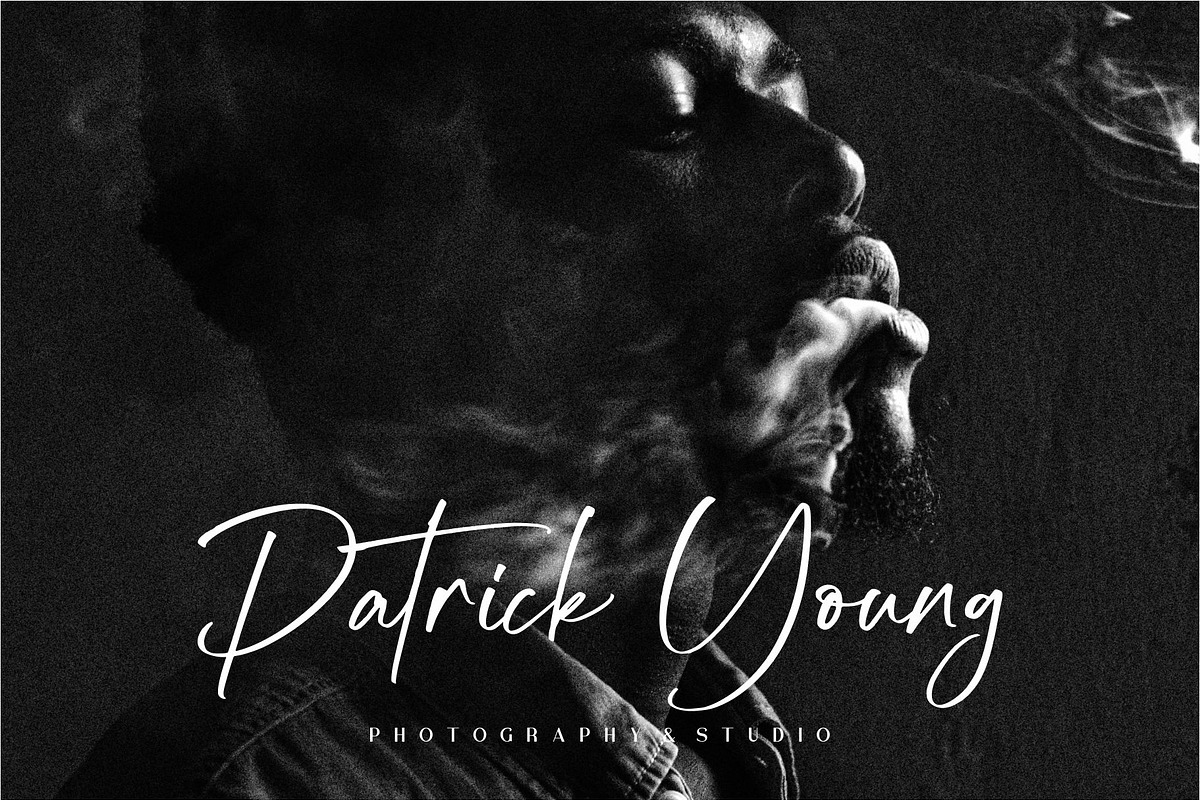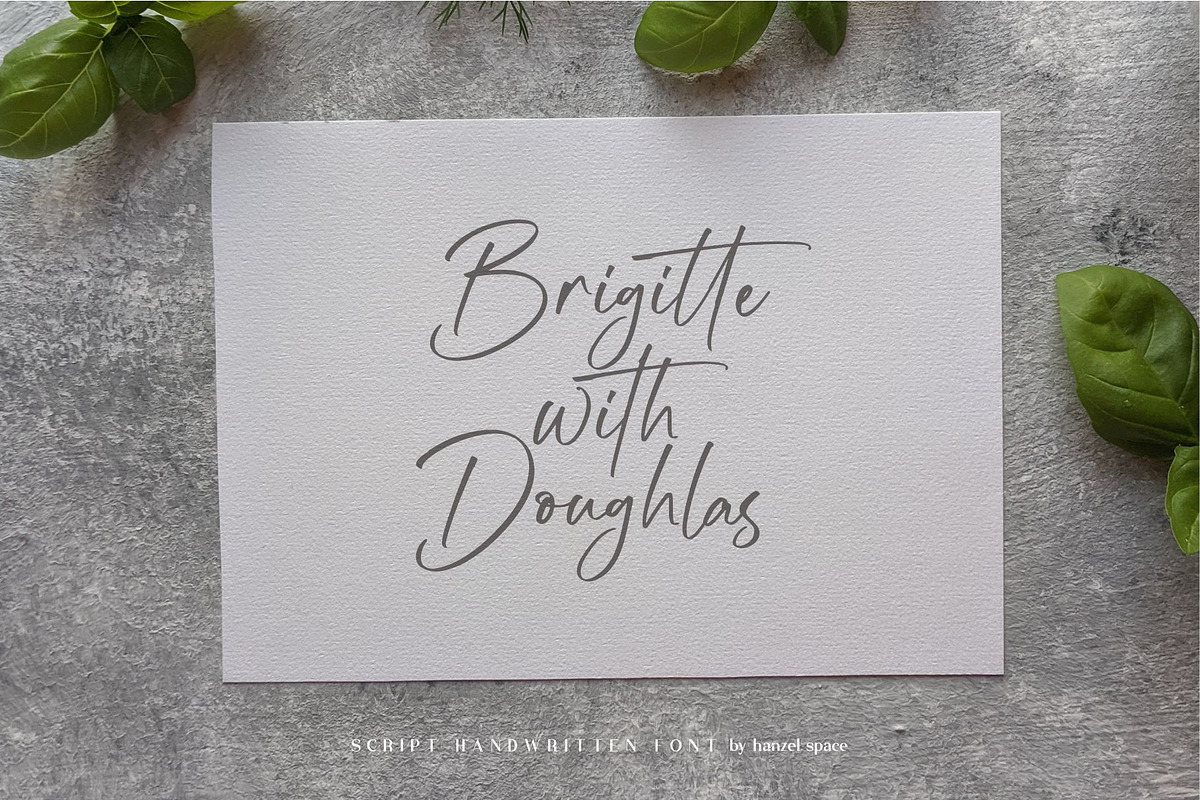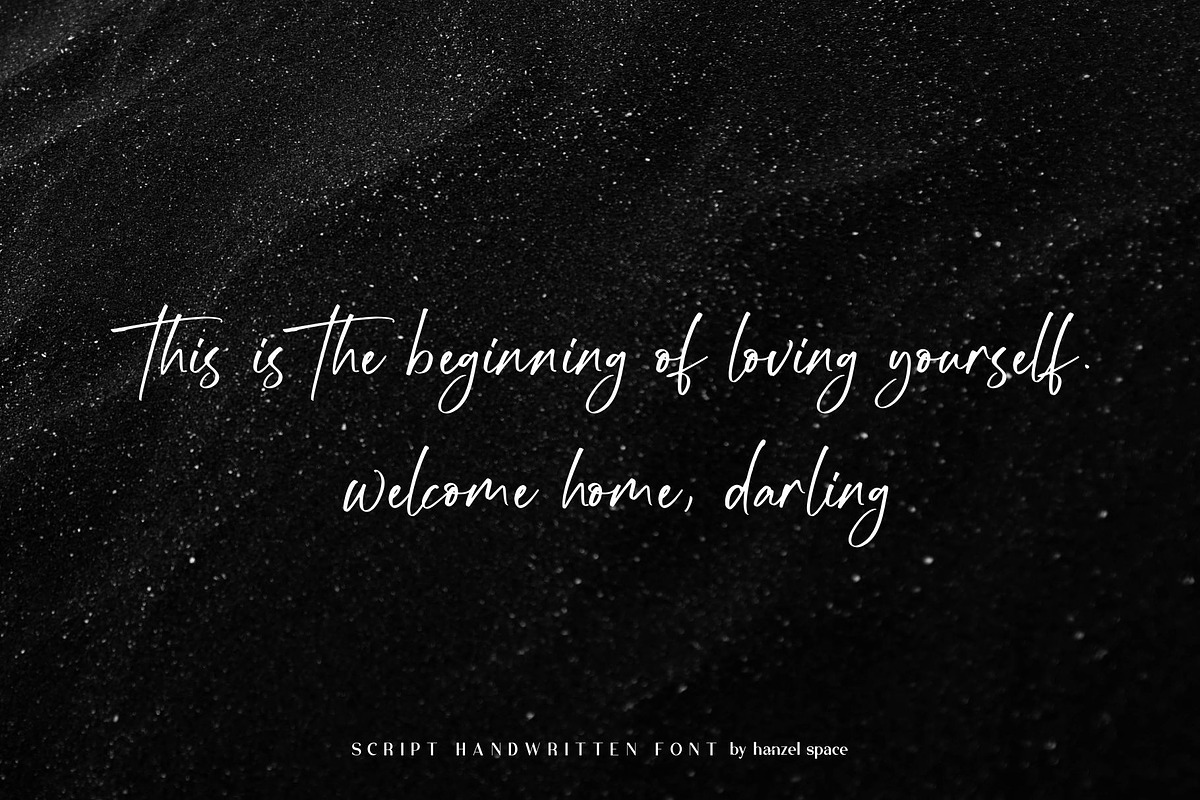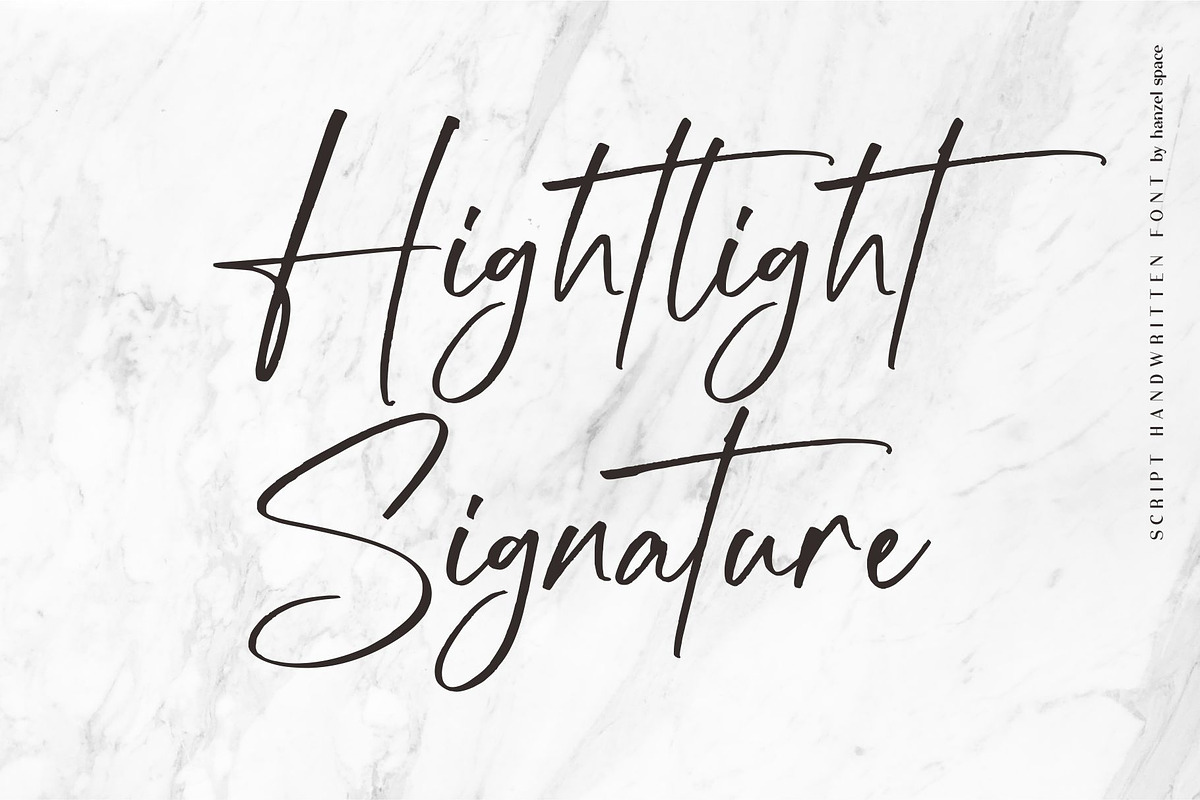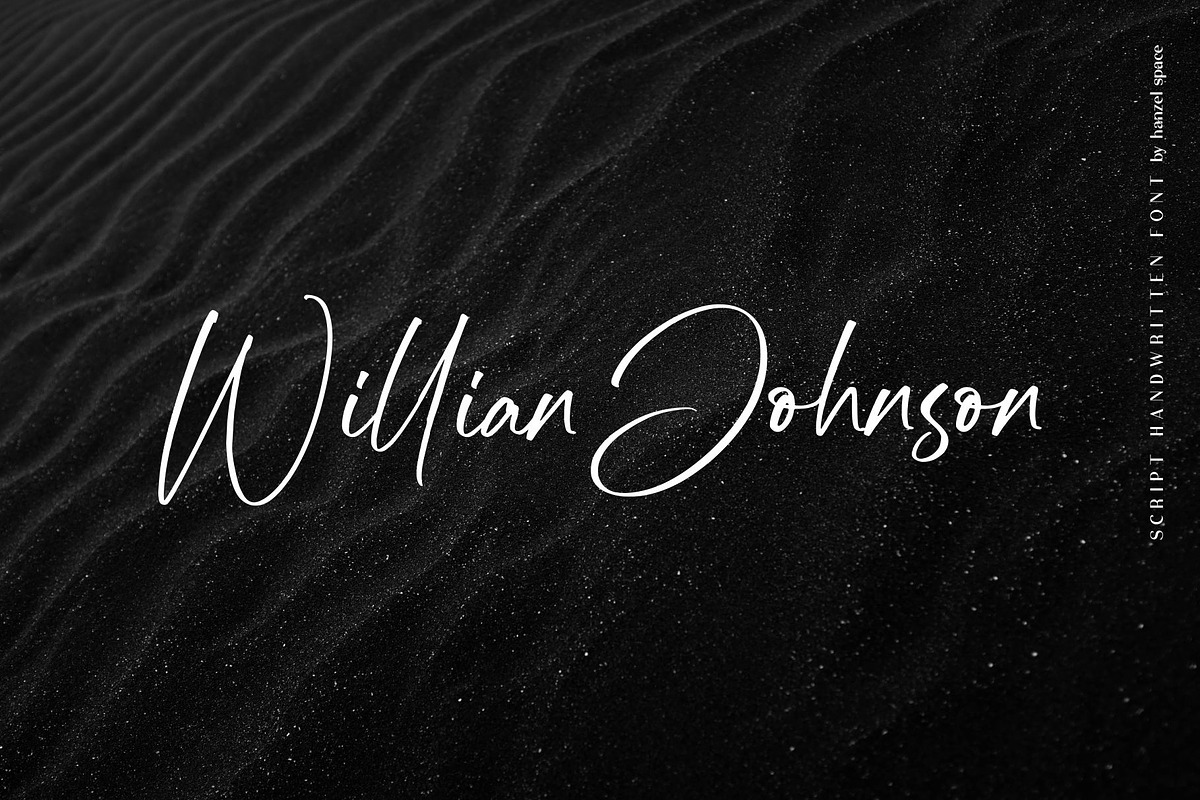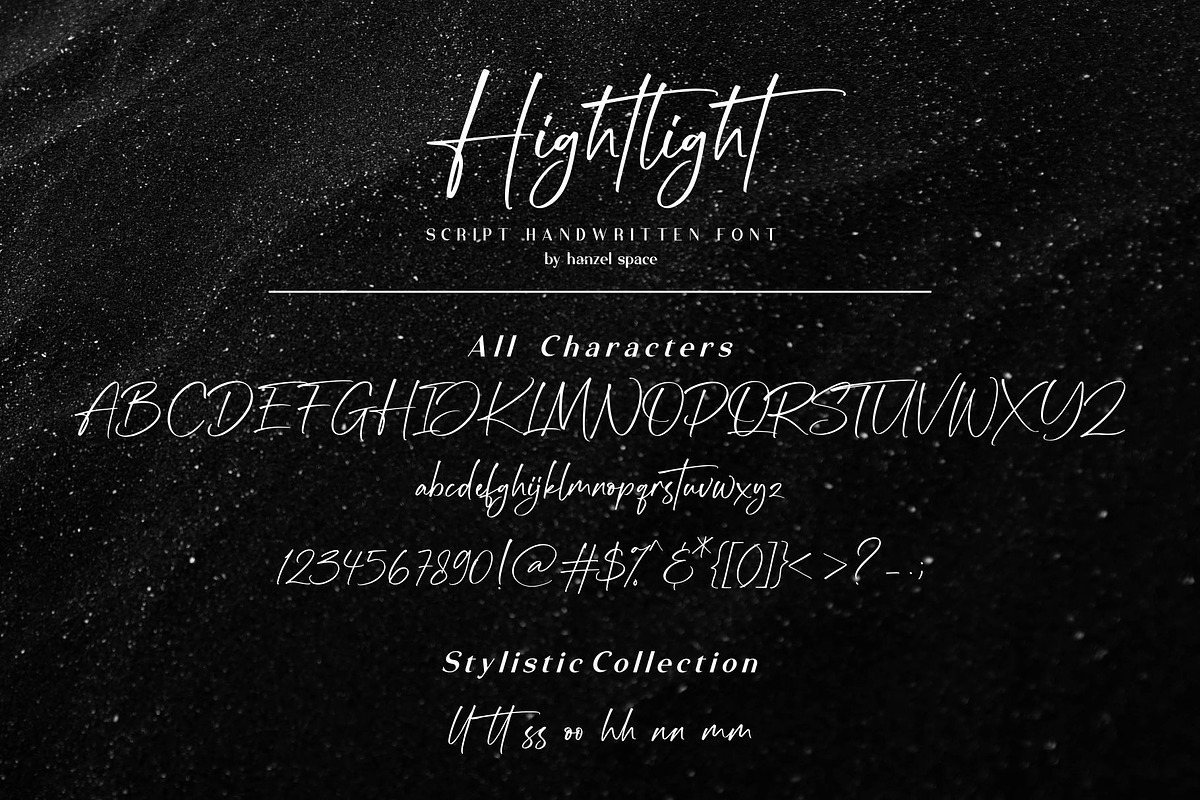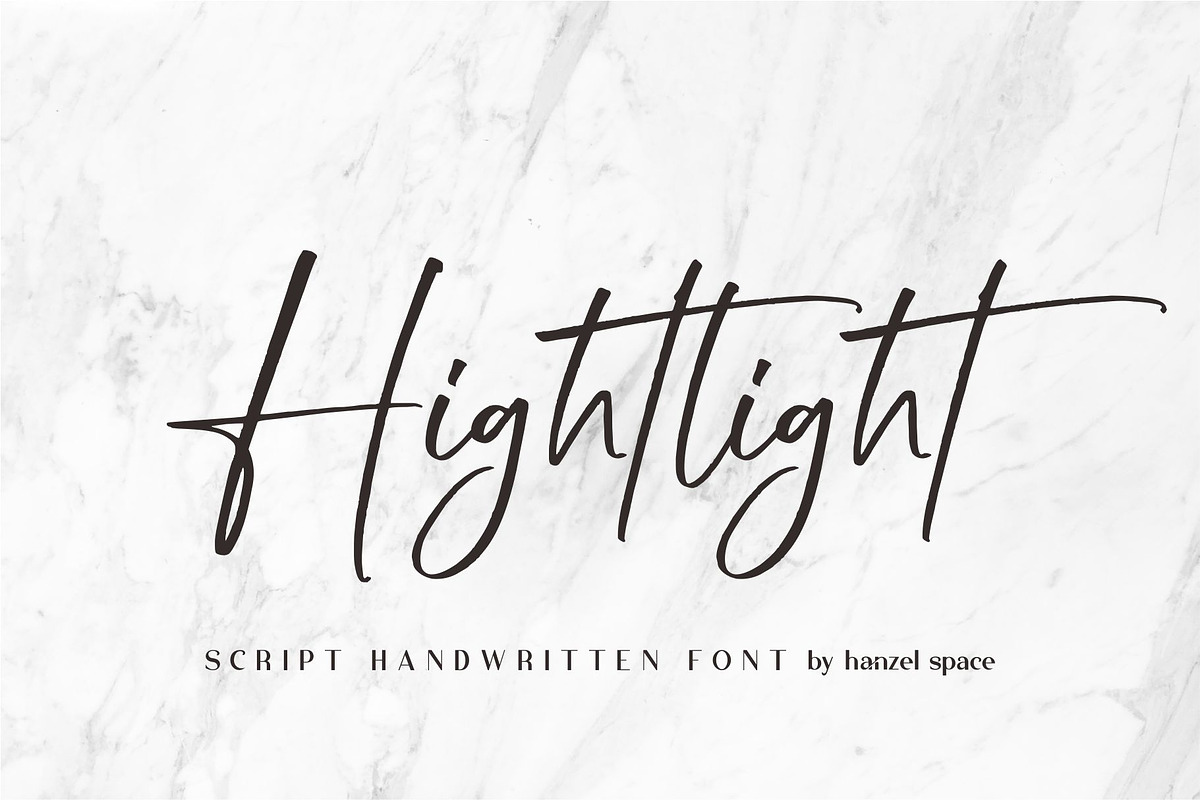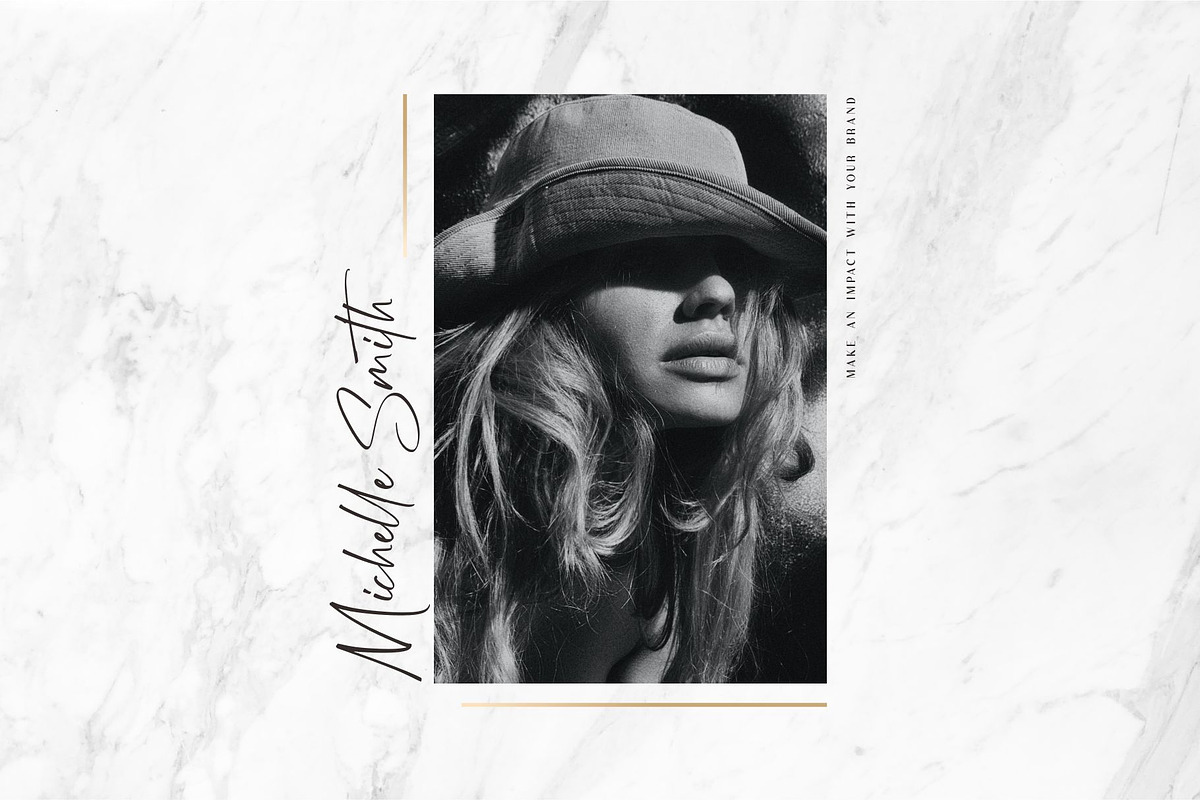
Hightlight | Handwritten font
Hightlight is a handwritten font with casual chic flair. It is perfect for branding, wedding invites and cards, and maybe for red wine label.
Hightlight includes full set of gorgeous uppercase and lowercase letters, numerals, a large range of punctuation. What you get, darling?